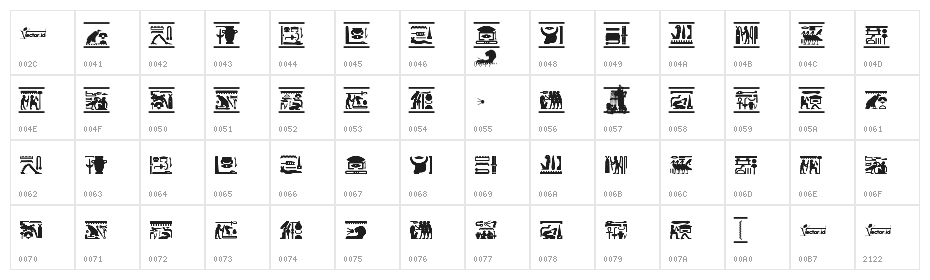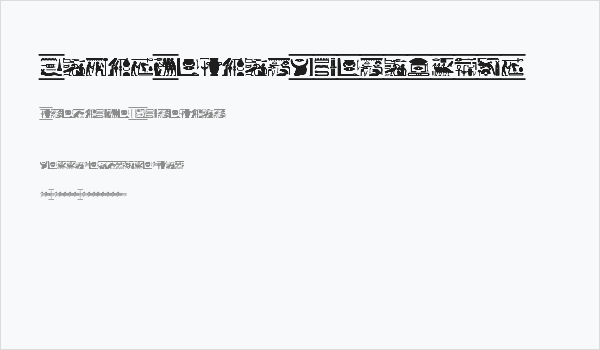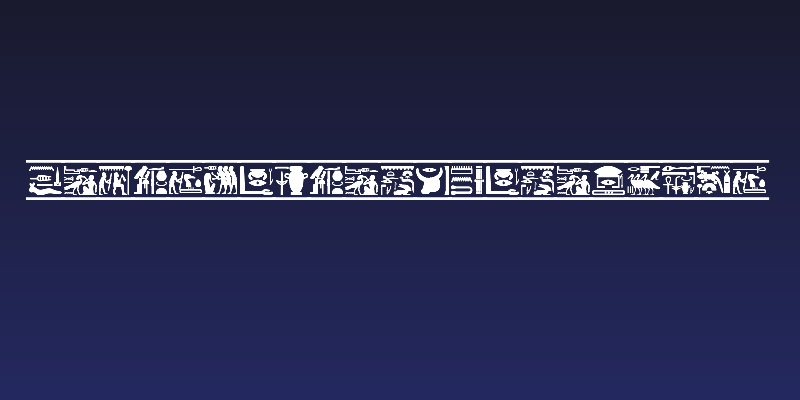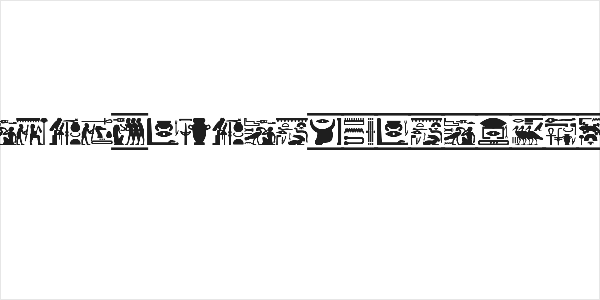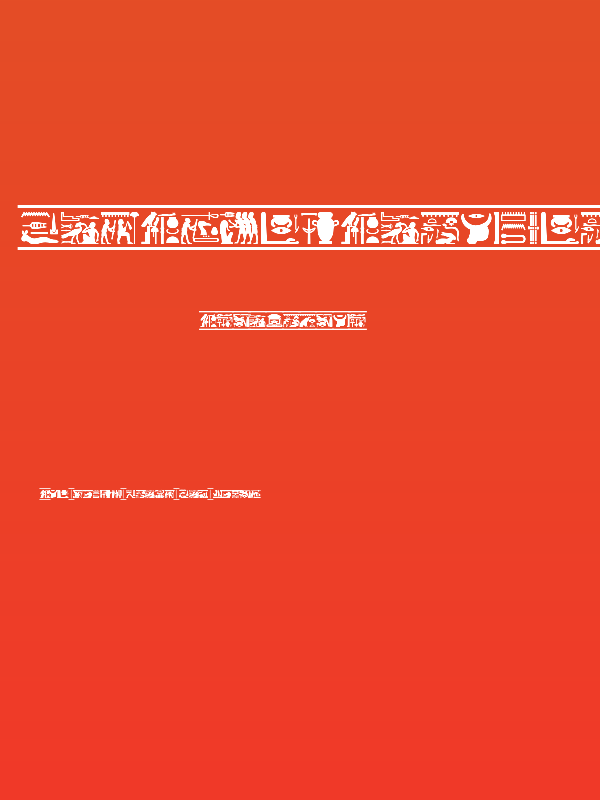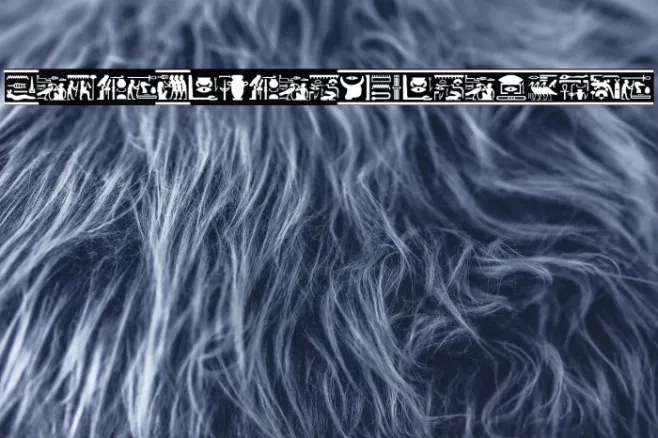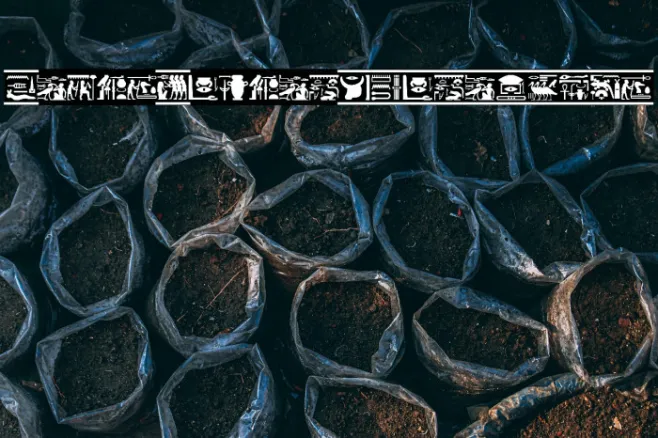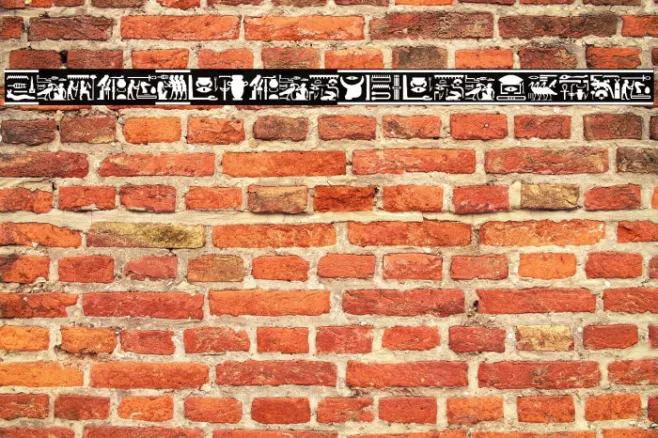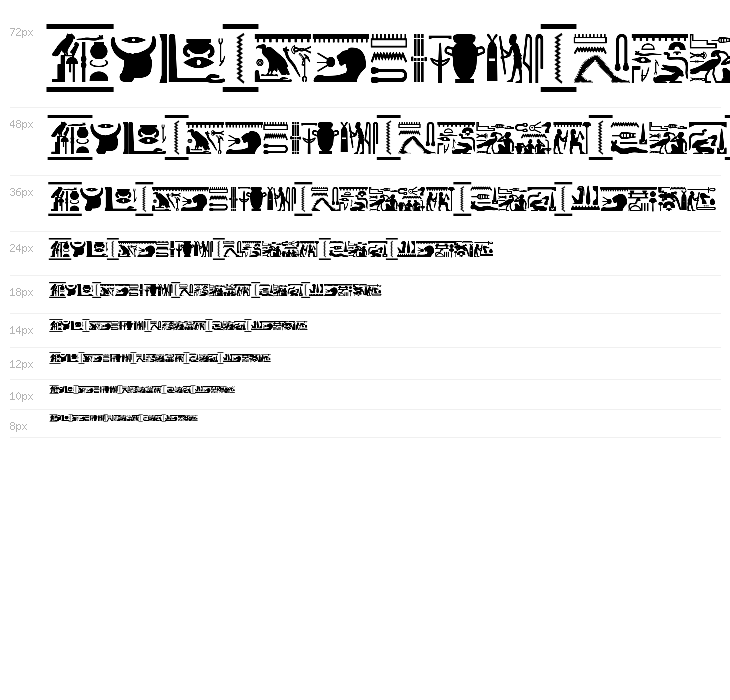
FontsVectorHIEROGLYPS Font
FontsVectorHIEROGLYPS Description
This is not a traditional font but rather a collection of hieroglyphic symbols. These symbols are reminiscent of ancient Egyptian writing, characterized by intricate and detailed pictographs representing words or sounds. The symbols include various depictions of animals, people, and objects, each with unique shapes and forms. The overall appearance is decorative and historical, evoking a sense of antiquity and cultural richness. The symbols are tightly packed, with each character maintaining a distinct and recognizable form, making them suitable for decorative purposes rather than standard text representation.
| Use Case | Decorative elements, themed designs, educational materials. |
| Proposed Projects | Ideal for projects requiring an ancient or historical theme, such as educational materials on Egyptology, themed event decorations, or artistic designs inspired by ancient cultures. |